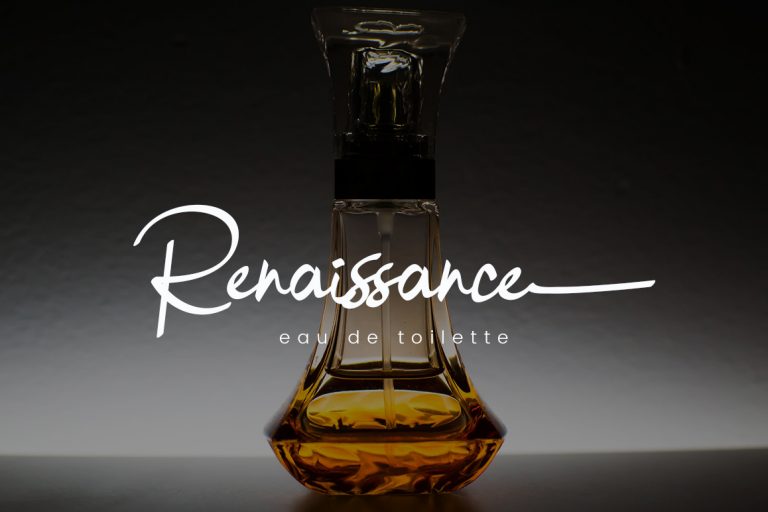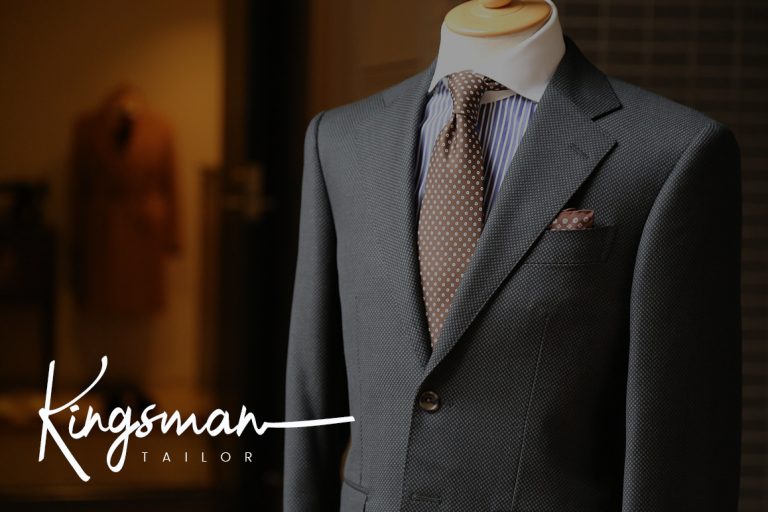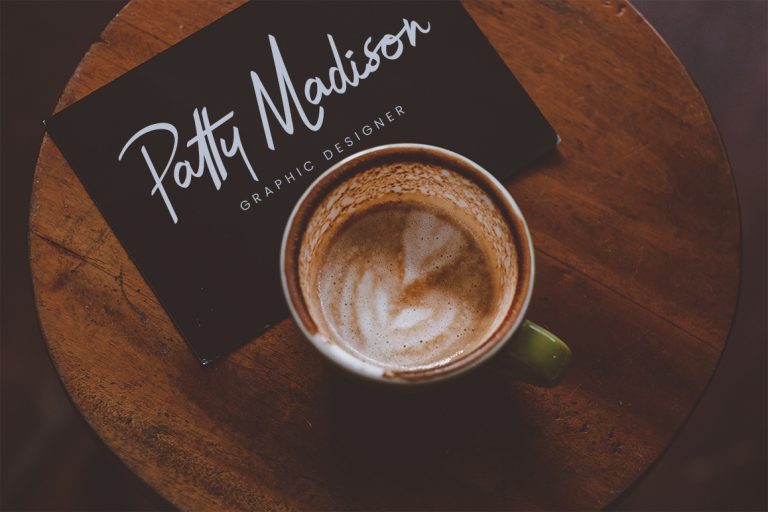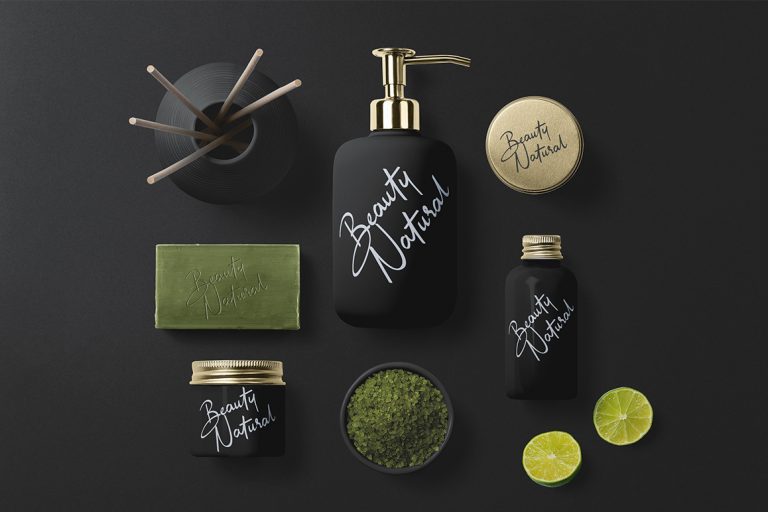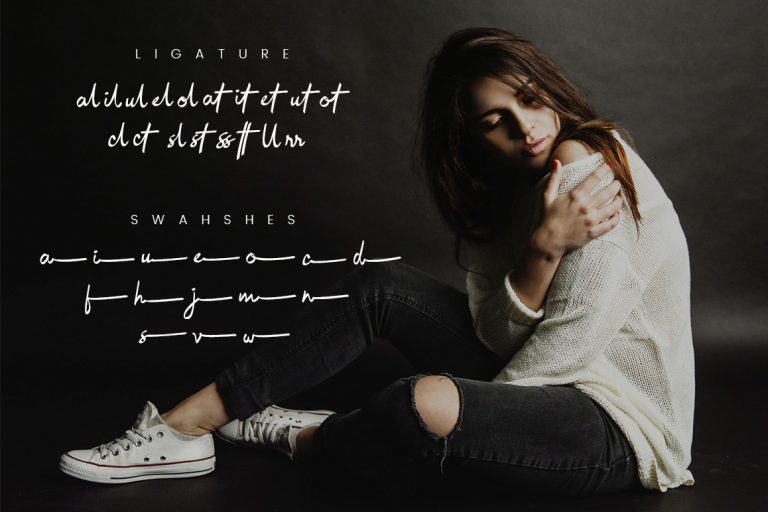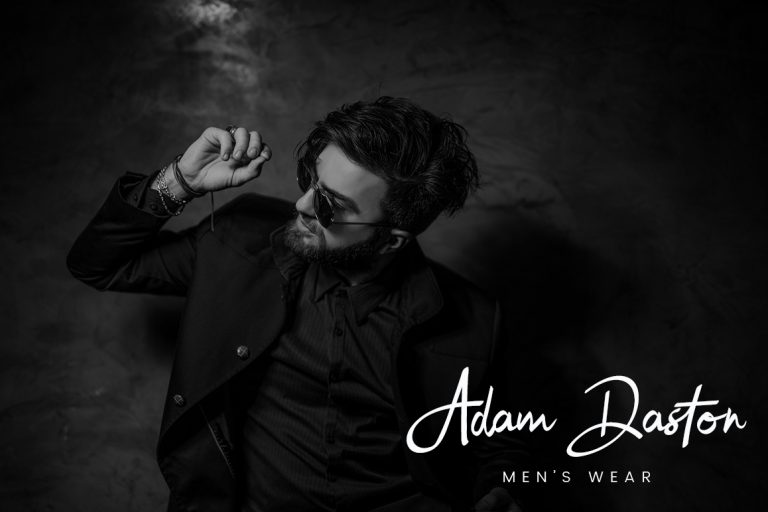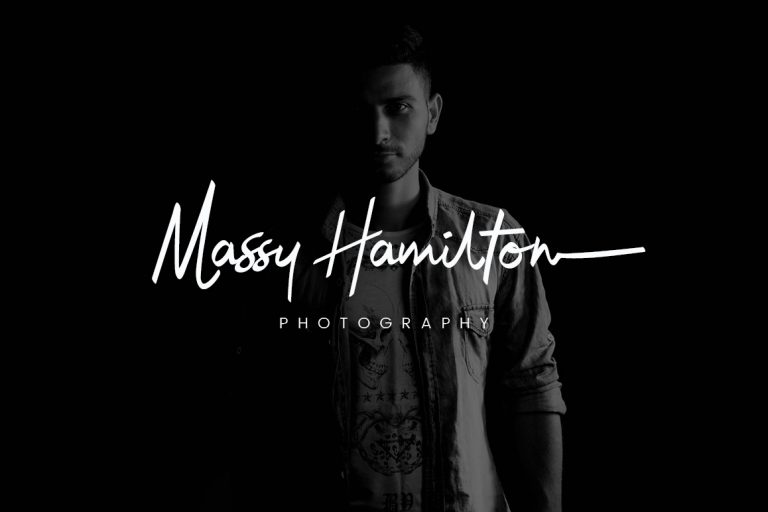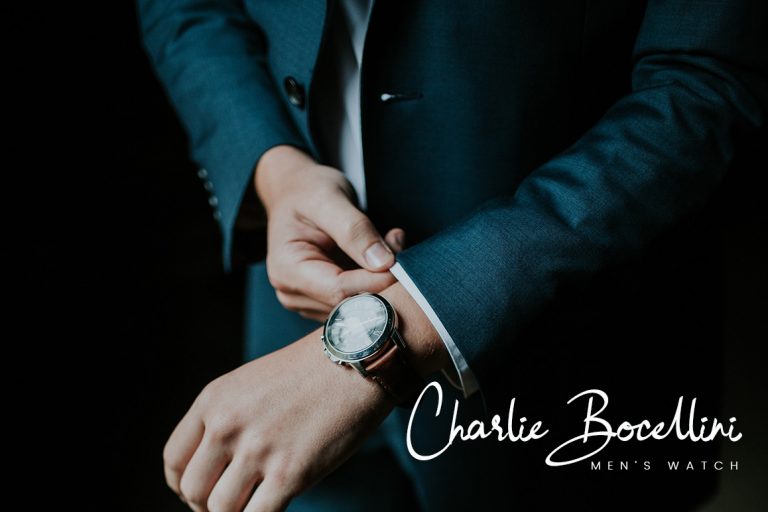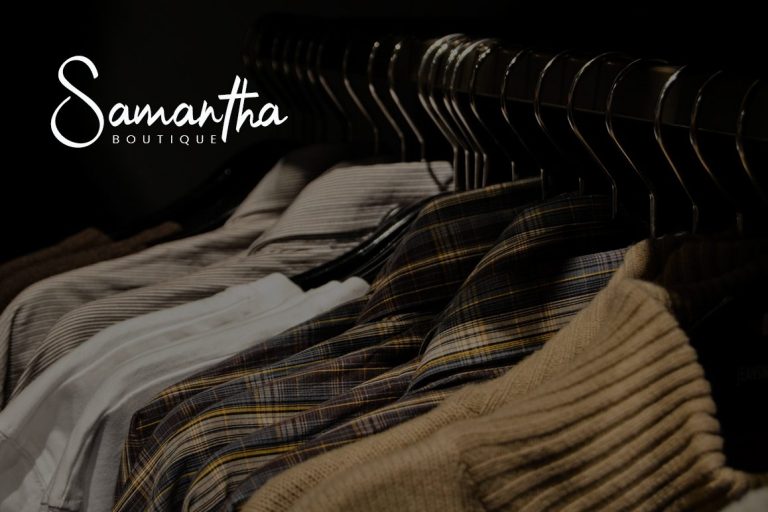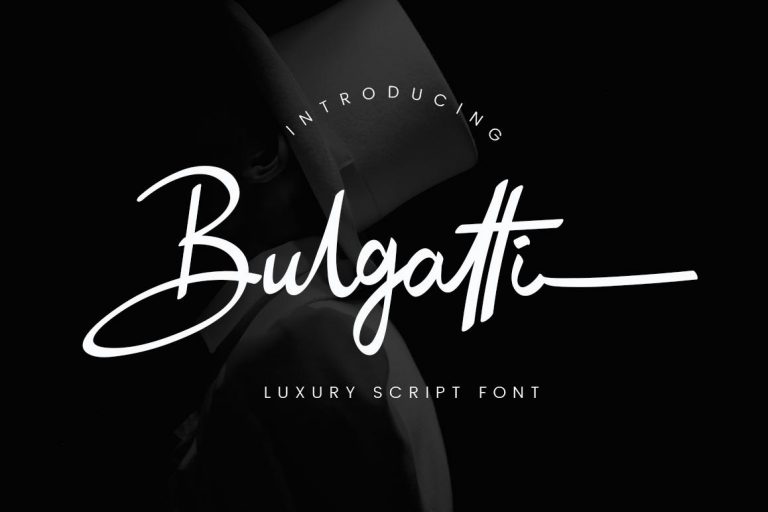
Bulgatti is a luxury script font with sophisticated style. Inspired by branded and luxury stuffs make this font looks classy and awesome in many way to your latest project.
Bulgatti is perfect for photography, watermark, social media posts, advertisements, logos & branding, invitation, product designs, label, stationery, wedding designs, product packaging, special events or anything that need handwriting taste.
- Ton of glyphs (include Uppercase, Lowercase, Numerals & Punctuations, Ligature, Swashes)
Bulgatti Luxury Script